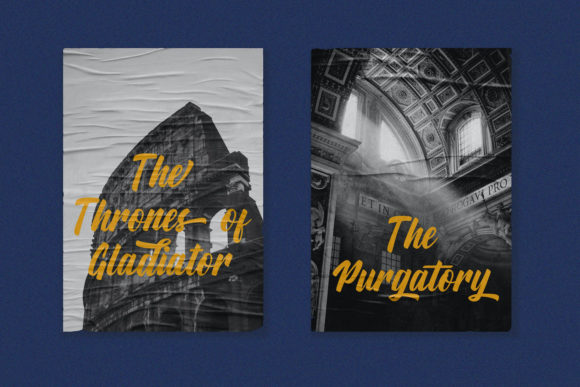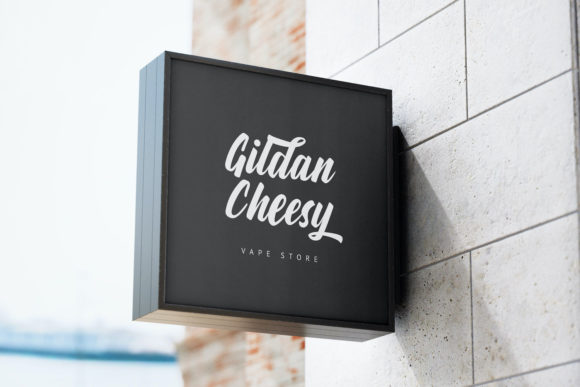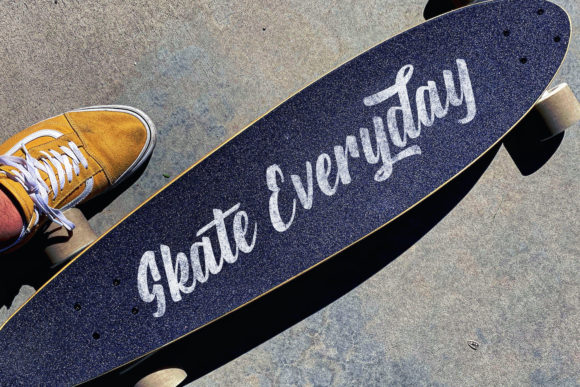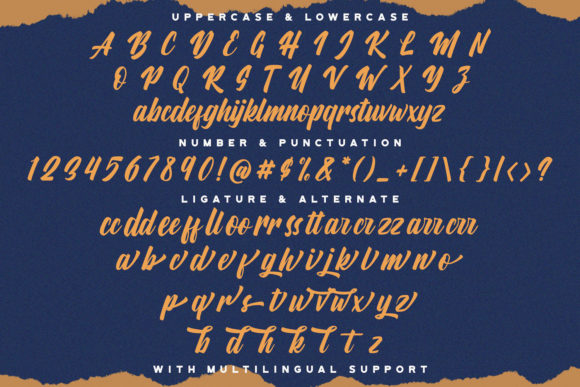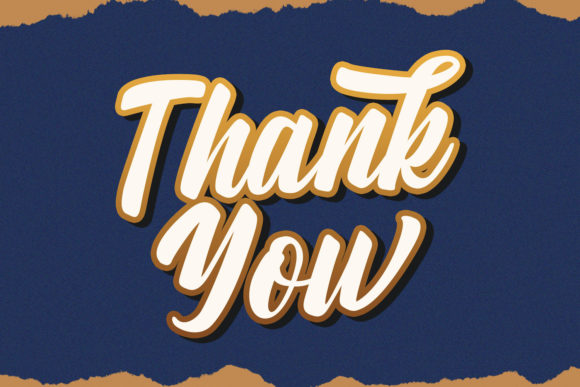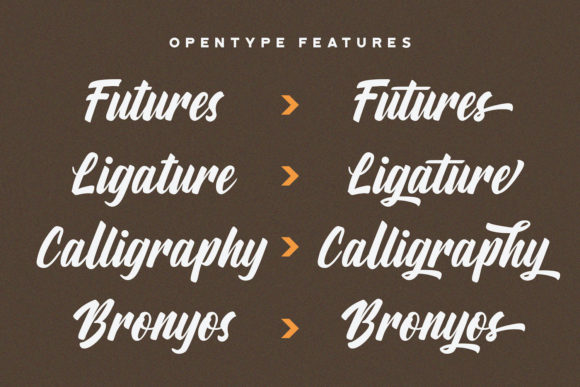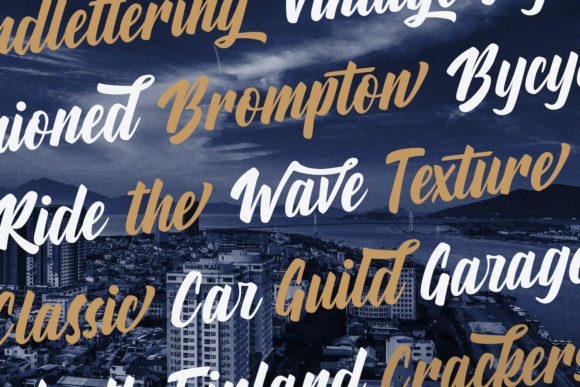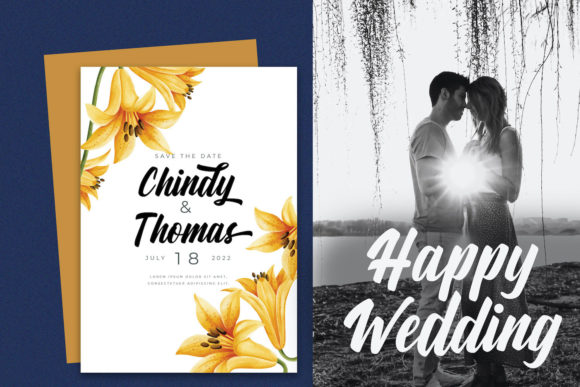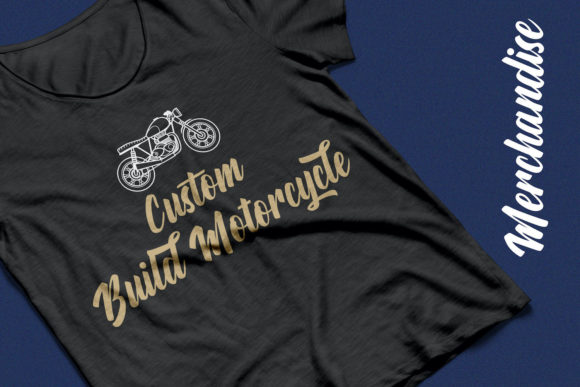
Aylafs Font
Aylafs is a stunning and bold handwritten font designed to bring a stylish touch to your headlines and logotype projects. With its strong and confident appearance, this font exudes a sense of dynamism and adds a nostalgic character to your designs.
The unique and eye-catching letterforms of Aylafs make it stand out and grab attention. Its bold strokes and intricate details create a visual impact that is perfect for making a statement. Whether you’re working on branding, headlines, logos, or any other design project that requires a touch of boldness, Aylafs is a great choice.
One of the standout features of Aylafs is its PUA encoding, which allows you to access all of the glyphs and swashes with ease. This means you have full control over the various decorative elements and additional characters available in the font. By utilizing these features, you can further customize and enhance your designs, making them unique and visually appealing.
Aylafs is particularly well-suited for projects that require a strong and memorable presence. It can bring a sense of confidence and character to your branding materials, making them instantly recognizable and leaving a lasting impression on your audience. Additionally, its nostalgic charm adds a touch of personality and warmth to your designs, creating a sense of connection with your viewers.
Whether you’re creating designs for print, digital media, or any other medium, Aylafs will provide the perfect balance of style and readability. Its bold and distinctive letterforms ensure that your headlines and logotypes are visually striking, while maintaining clarity and legibility.
In conclusion, Aylafs is a gorgeous and bold handwritten font that adds a stylish touch to your headlines and logotype projects. With its strong and confident appearance, it brings a dynamic and nostalgic character to your designs. The font’s PUA encoding gives you easy access to a wide range of glyphs and swashes, allowing for further customization and personalization. Choose Aylafs to make a bold statement and leave a lasting impression with your designs.